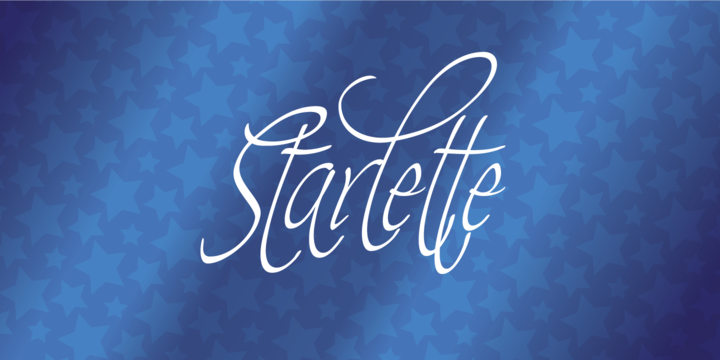
• Starlette™
Usage recommendations: Captions, fliers, packaging, cards, posters, ads, book jackets, manuals, menus, bulletins, magazines, greetings, announcements. Not suitable for MSWord.